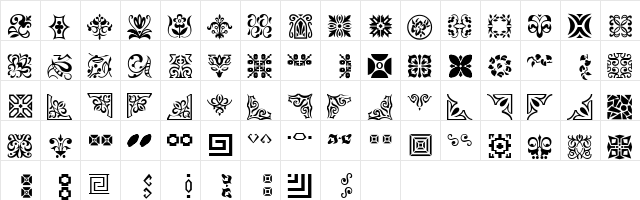
OrnamentTT Regular
Design Context for OrnamentTT Typeface
OrnamentTT is built around its visual character rather than neutral utility — its distinctive forms are designed to make an impression at display sizes.
Font Pairing: Pair with a clean neutral sans-serif for body copy to let OrnamentTT's character lead without overwhelming the composition.
Pro Tip: Treat OrnamentTT as the centrepiece of your typographic hierarchy. One strong heading set in a decorative face can carry an entire layout.